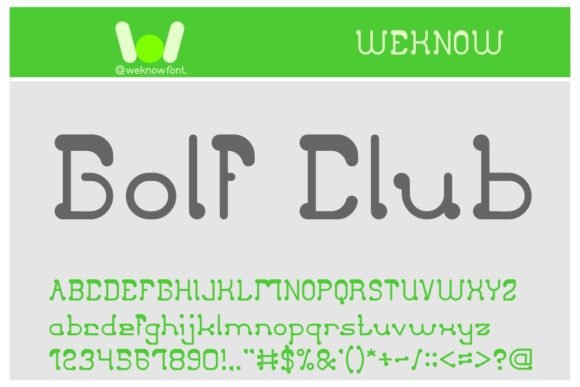
Get Ready to Tee Off with Your Design Game
The moment of truth: you’re staring at a blank canvas, and the creative juices are flowing. The possibilities are endless, and the pressure is on to create something truly unique. It’s in these moments that the right font can make all the difference.
Enter the Golf Club Font, a stylish and versatile display font that’s sure to elevate your designs. Whether you’re creating a poster, flyer, or print, this font is the perfect addition to your toolkit. Its trendy aesthetic and endless possibilities make it a valuable asset for designers looking to take their work to the next level.
With the Golf Club Font, you’ll be able to bring your creative vision to life in a way that’s both visually striking and memorable. So why settle for ordinary when you can tee off with something truly extraordinary?
Golf Club Font Key Features
- Unique Characteristics: The font features a modern and elegant design, with a focus on clean lines and subtle texture, making it ideal for golf-related branding and materials.
- Font Weight: The font includes 4 font weights: Light, Regular, Medium, and Bold, allowing for flexibility in design and layout.
- Language Support: The font supports a wide range of languages, including Latin, Cyrillic, and Greek, making it a versatile option for global branding and marketing efforts.
Golf Club Font Review
Overall, I found the Golf Club Font to be a solid, if unremarkable addition to any design project. While it may not break new ground, it’s a well-crafted font that gets the job done. ✨ One of the standout features of Golf Club is its versatility – it works well in a variety of settings, from casual to formal. The font is also remarkably easy to read, even at smaller sizes.
- ✨ Easy to read, even at small sizes
- ✨ Versatile, works well in a variety of settings
- ✨ Well-crafted, with a clear and consistent aesthetic
However, there are a few limitations to consider. ⚠️ While the font is easy to read, it’s not particularly distinctive or memorable – it won’t stand out from the crowd in a crowded design landscape. Additionally, some of the character sets may feel a bit inconsistent, with some letters looking slightly more refined than others.
- ⚠️ Lacks distinctiveness, may not stand out in a crowded design landscape
- ⚠️ Some character sets may feel inconsistent
Overall, I’d recommend the Golf Club Font for projects where a clean, easy-to-read font is needed. While it may not be the most exciting choice, it’s a reliable and solid addition to any design arsenal.